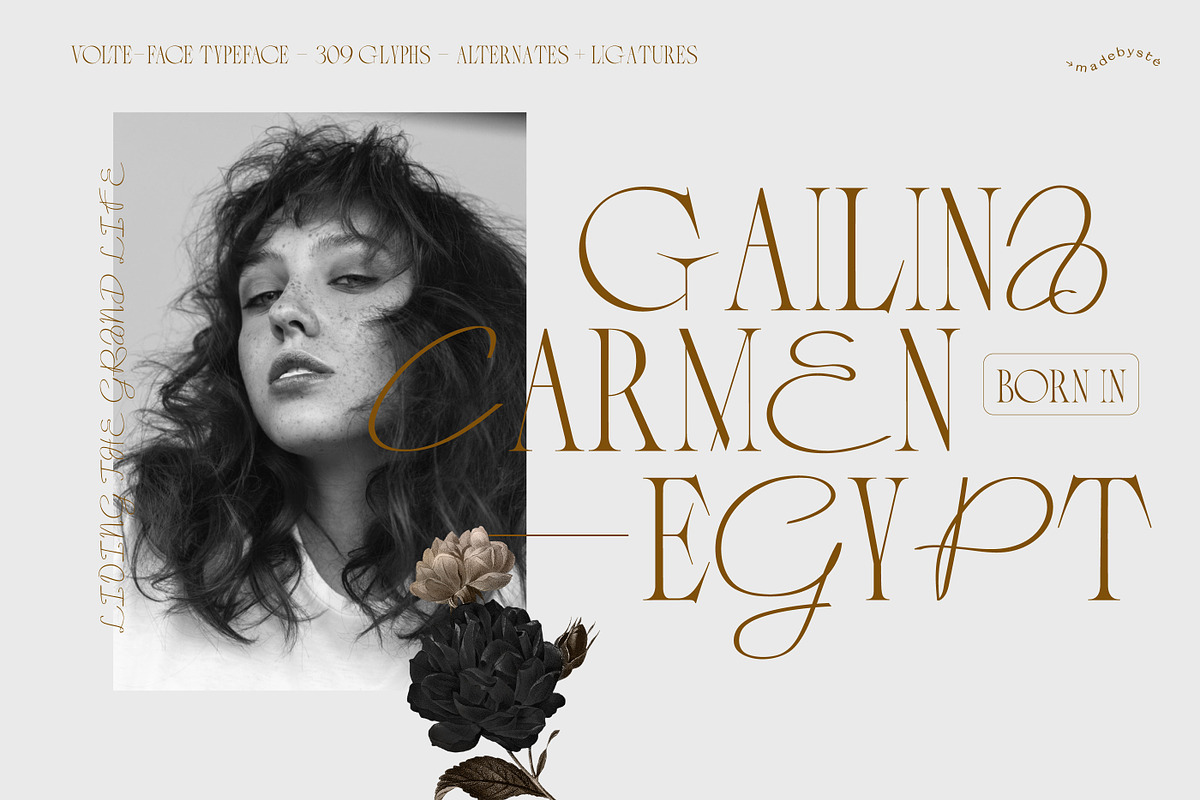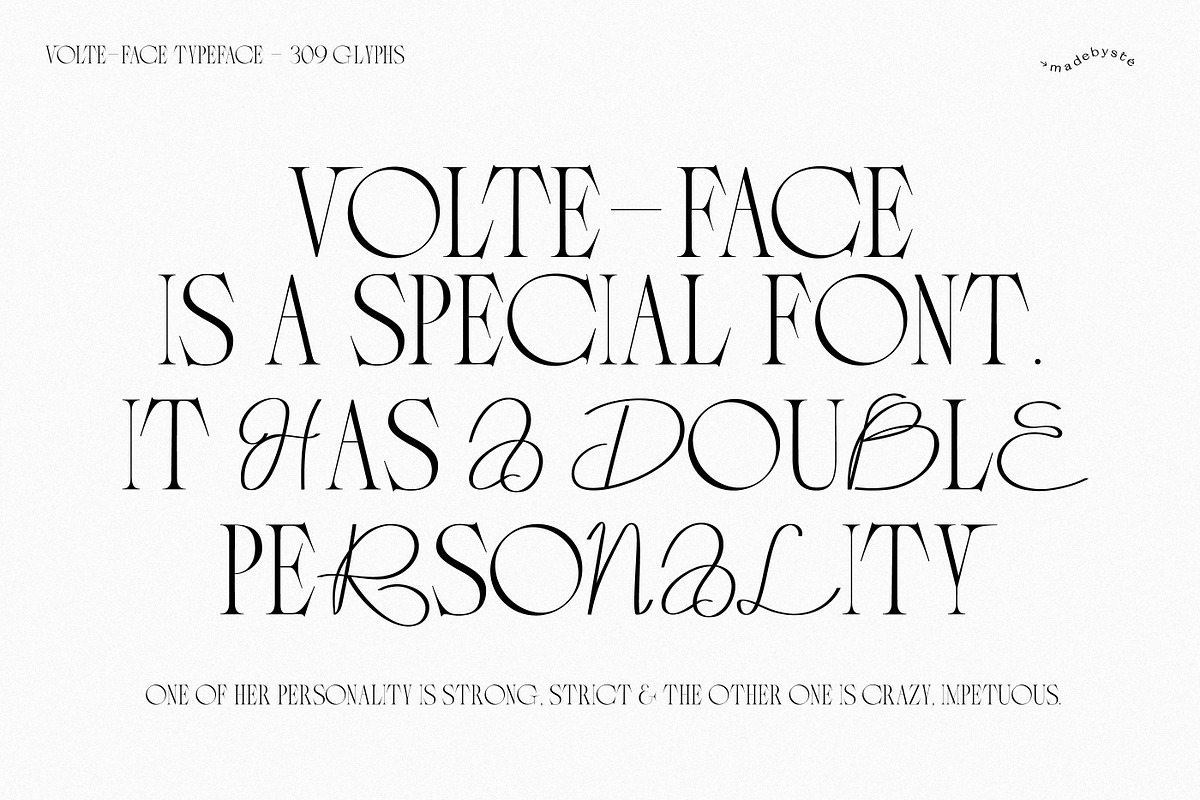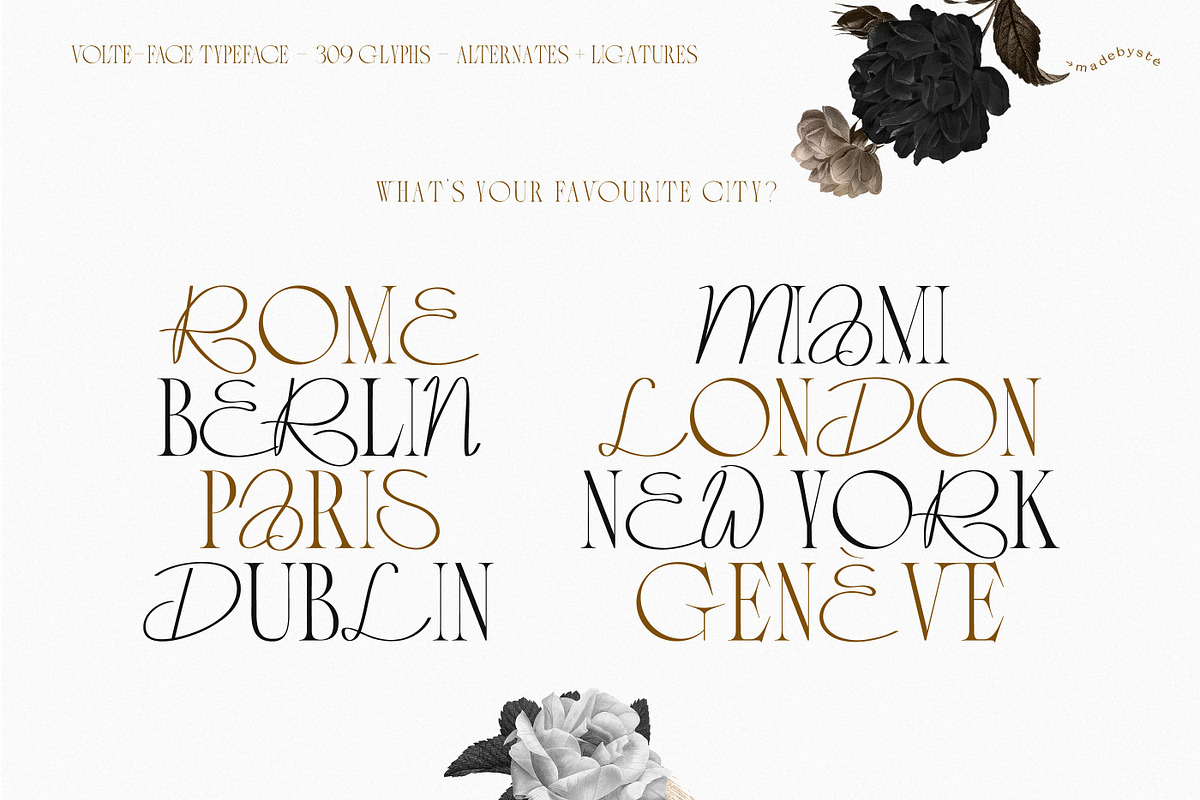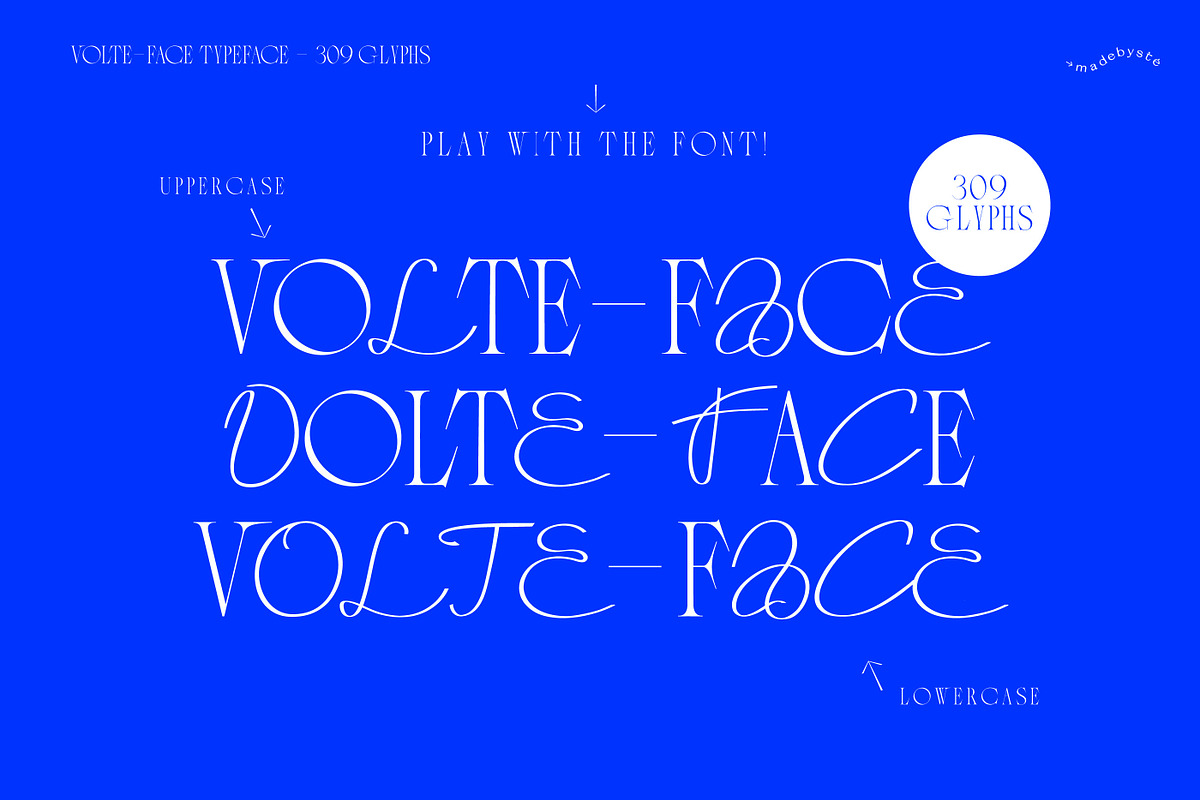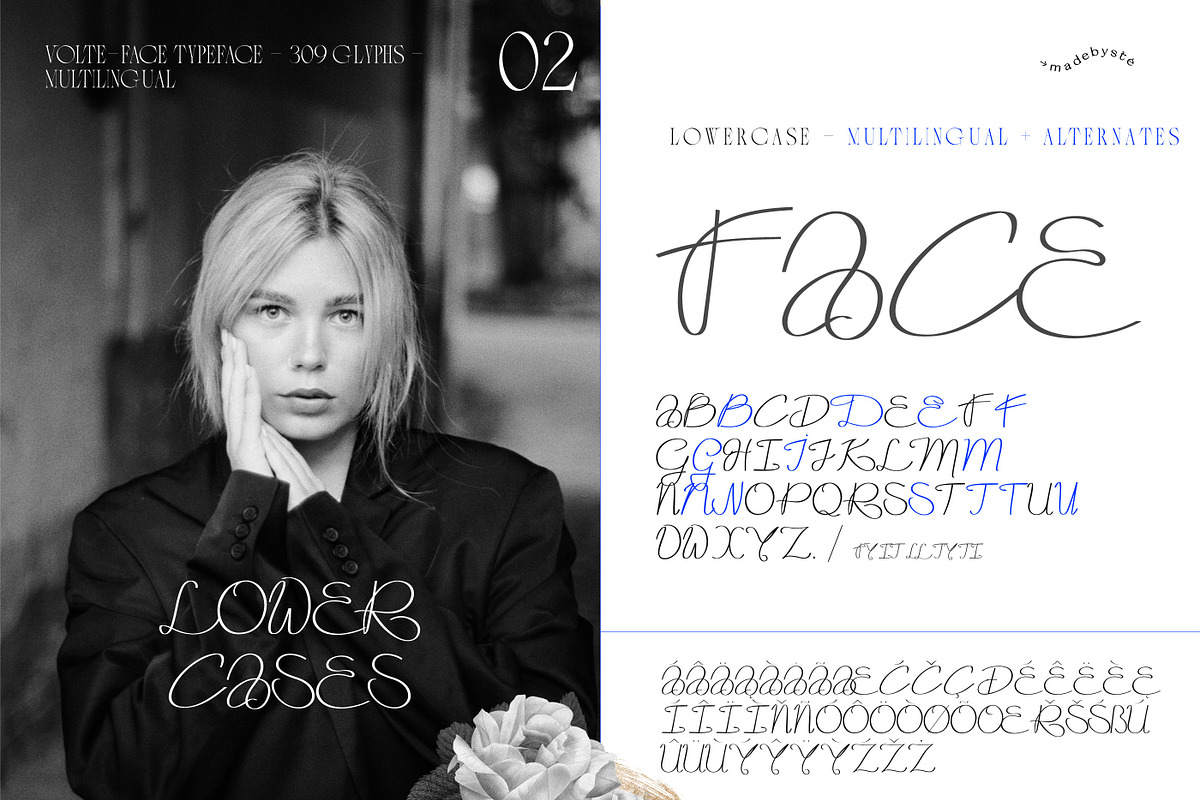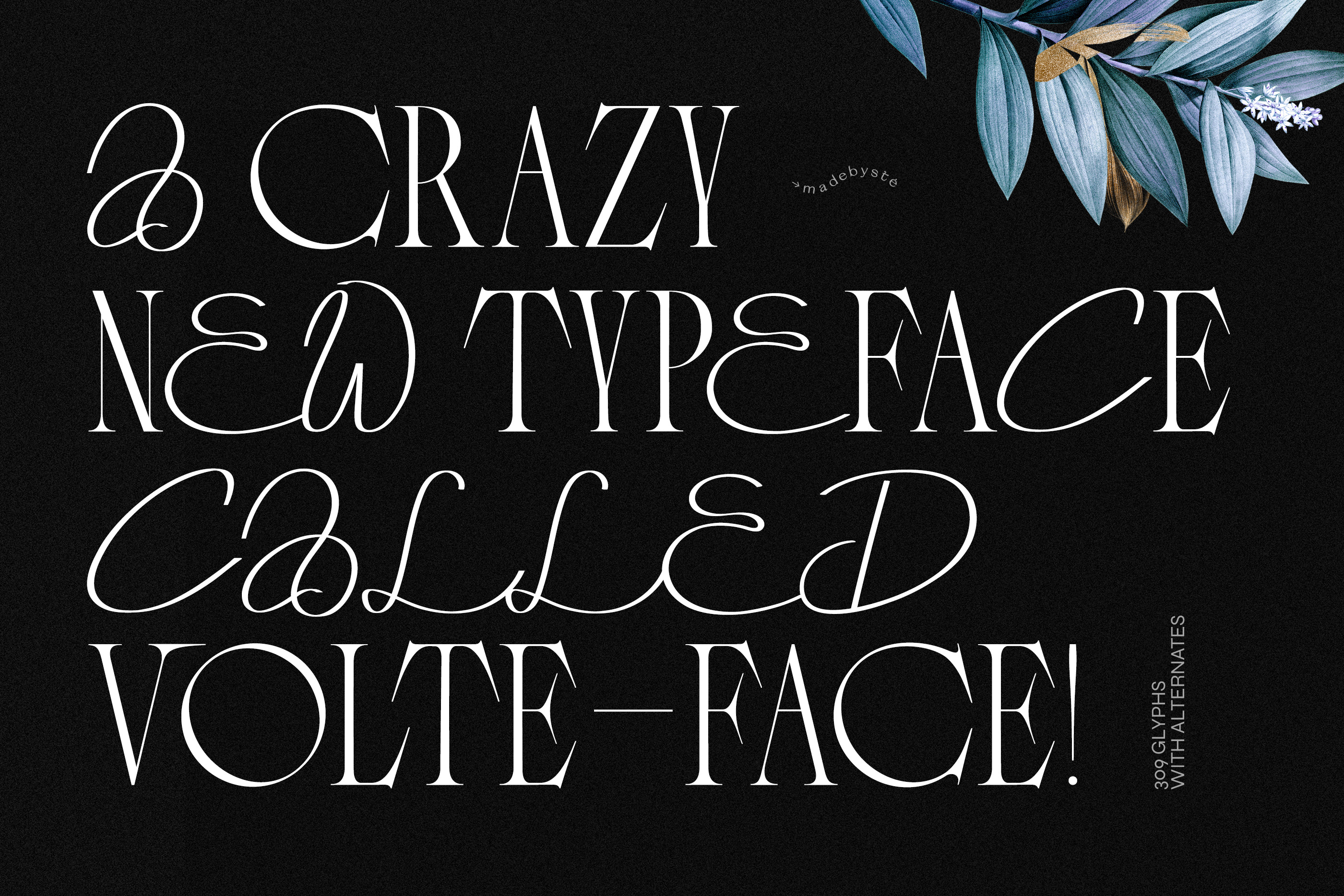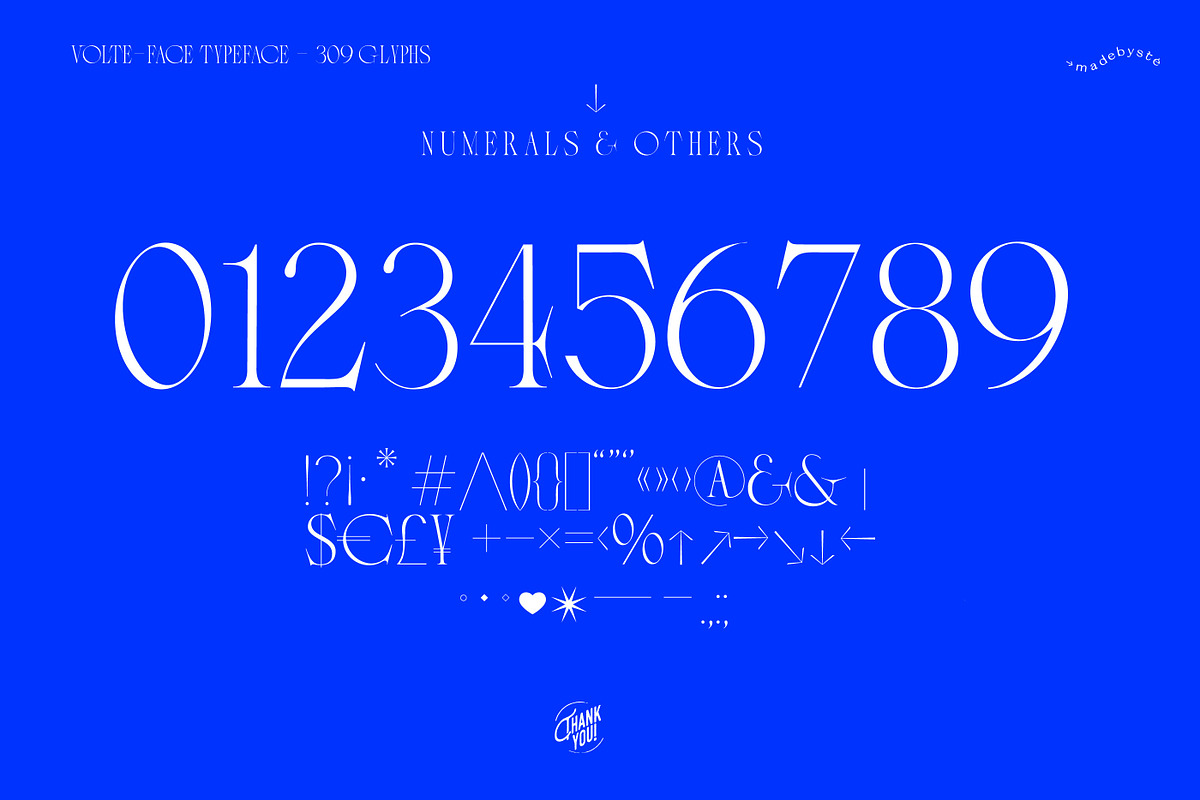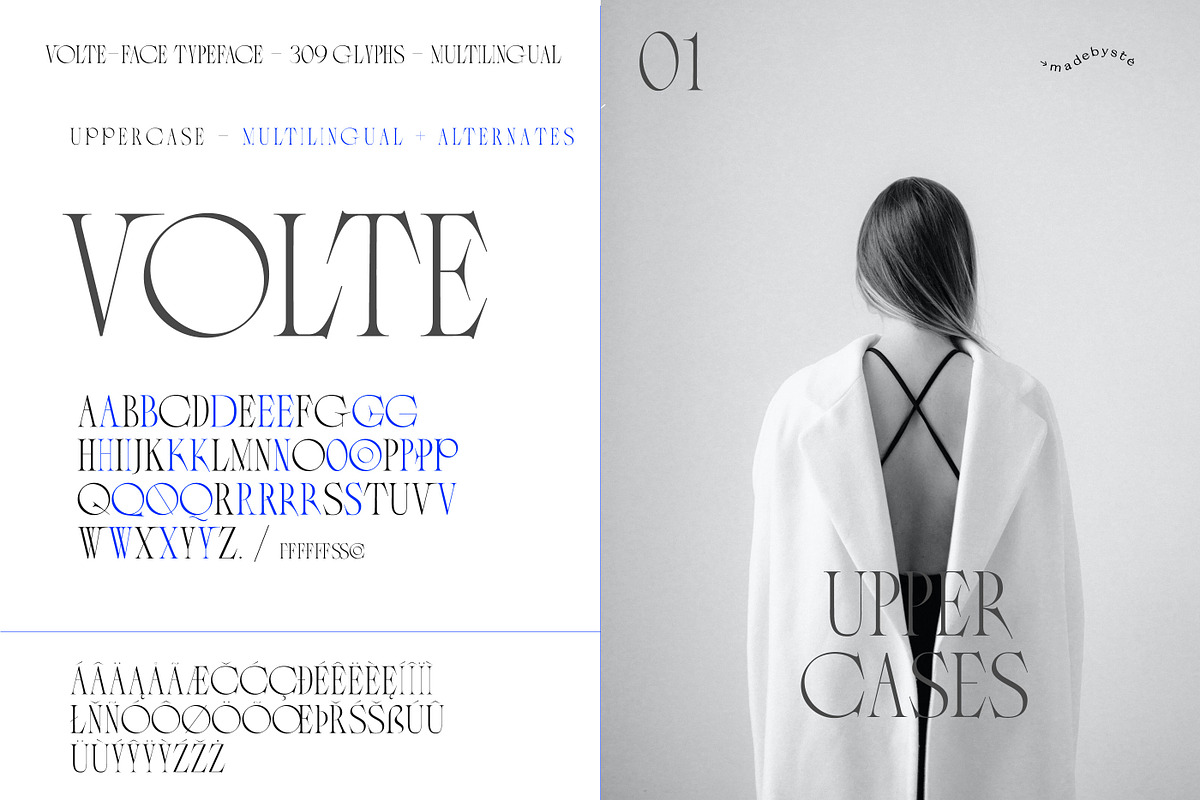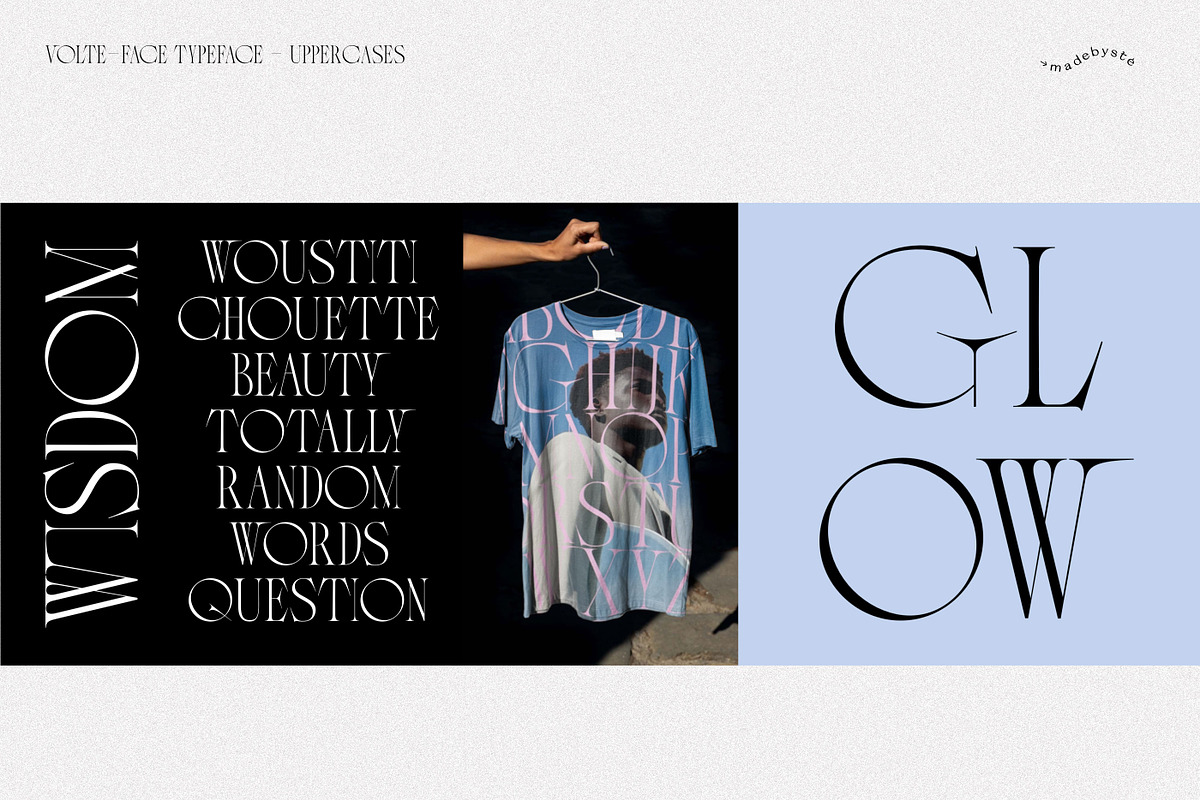
VOLTE-FACE - Serif & Script Font
Volte-Face ↠ Stylish • Elegant • Crazy.
Volte-Face typeface is an original display font because it has two different personality. The uppercases are serif serious glyphs and the lowercase are the crazy ones, more impetuous. Two different faces/sides of the same coin. It makes it playful & memorable. Have fun with it. Perfect for big titles.
• Upper/lower case, numbers, punctuation and multilingual support. • Set of arrows included